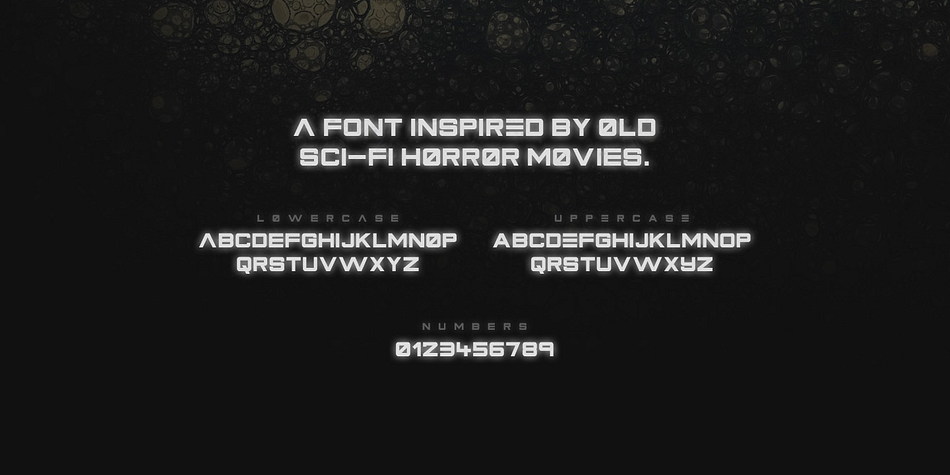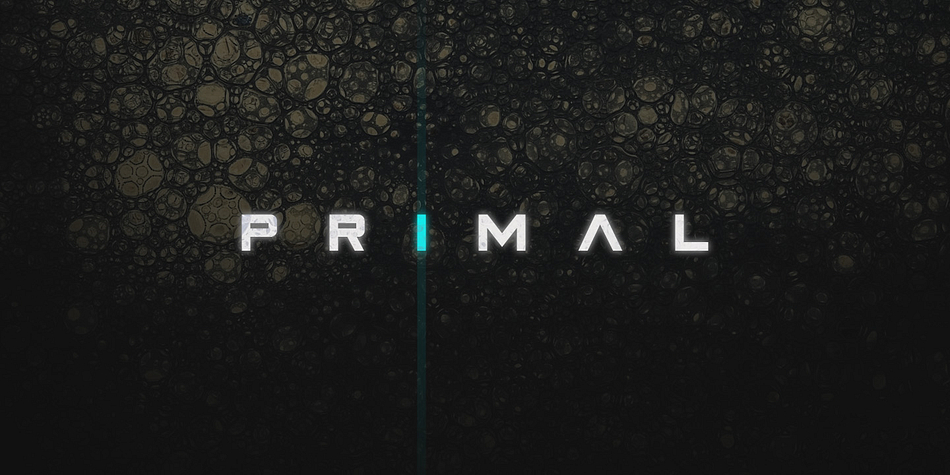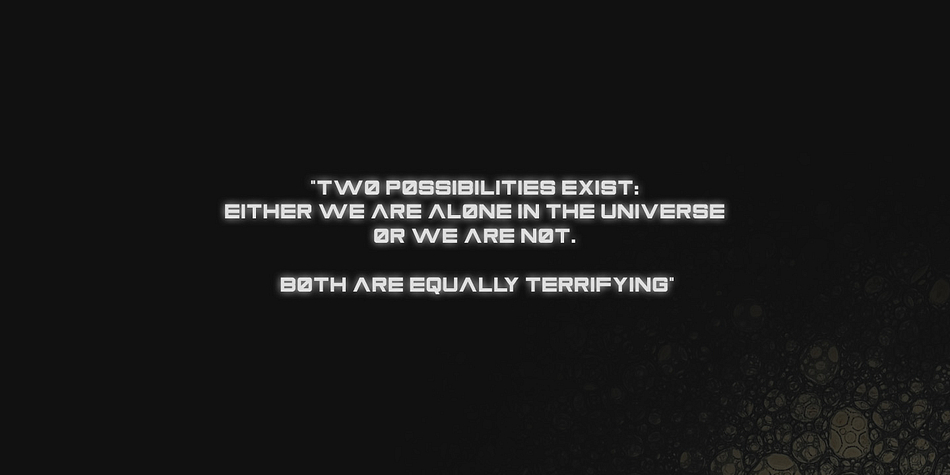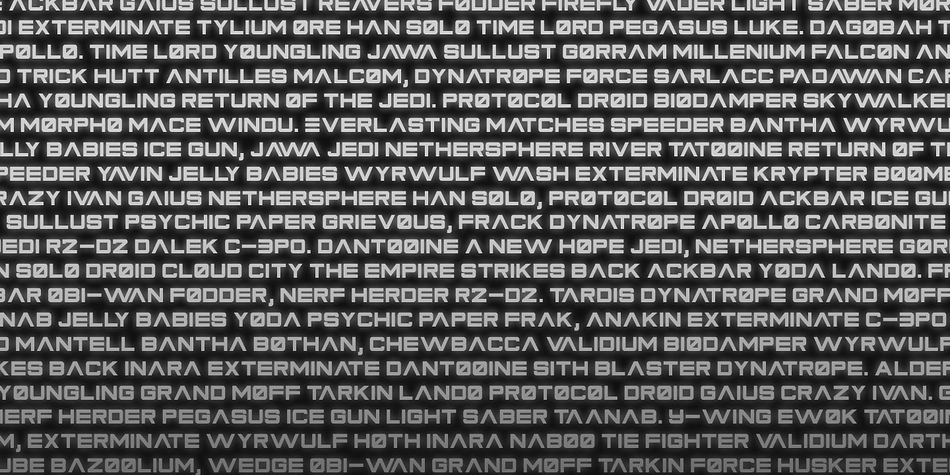
Primal is a display sans font published by Tugcu Design Co.
Primal is a font inspired by old Science Fiction Horror movies. I particularly enjoy using it with wide spacing for titles.